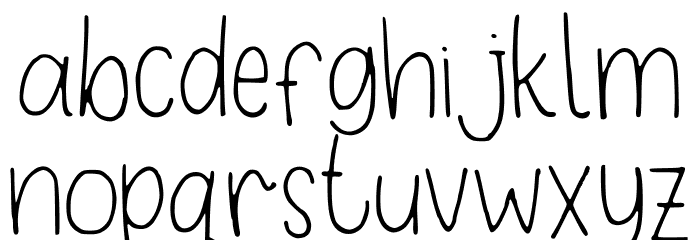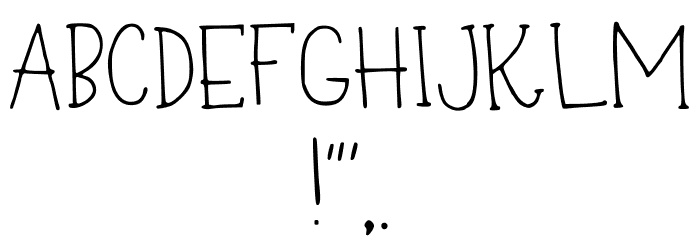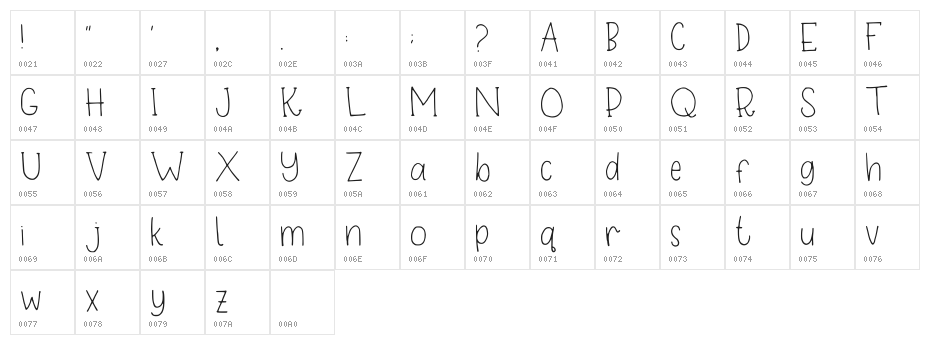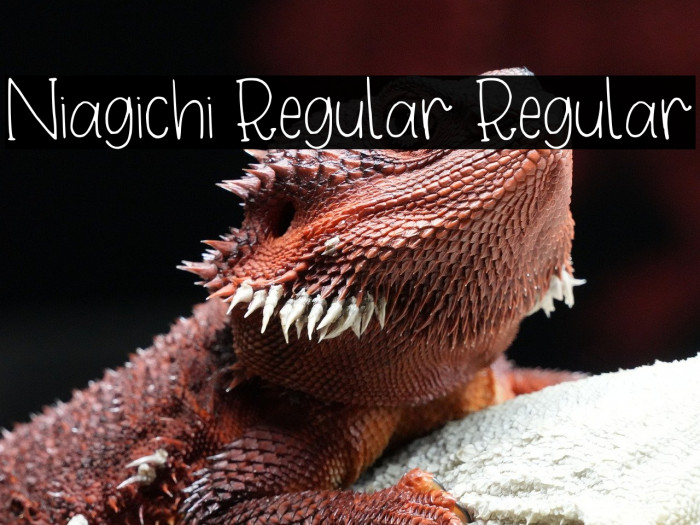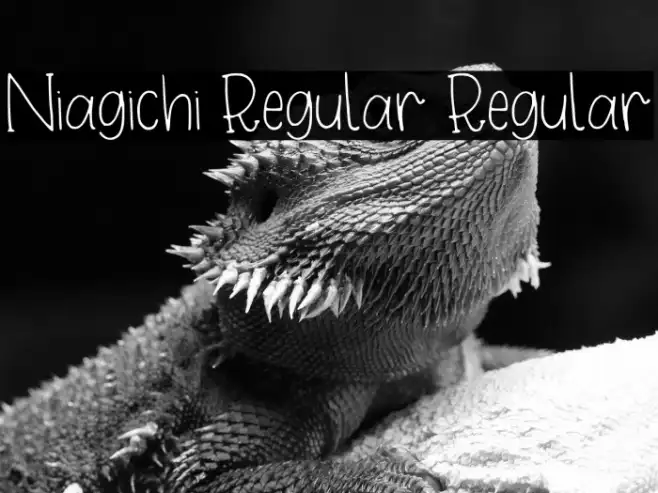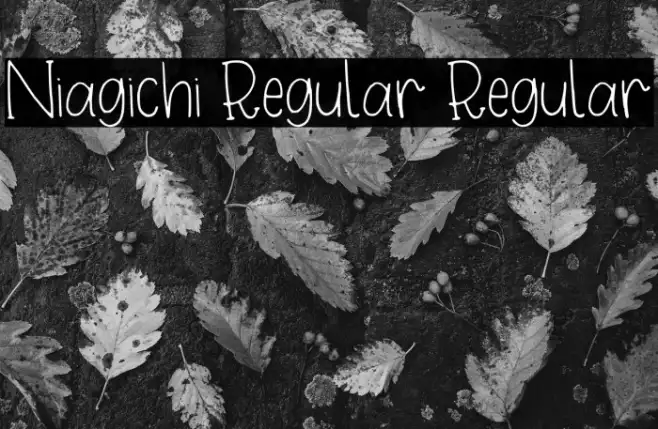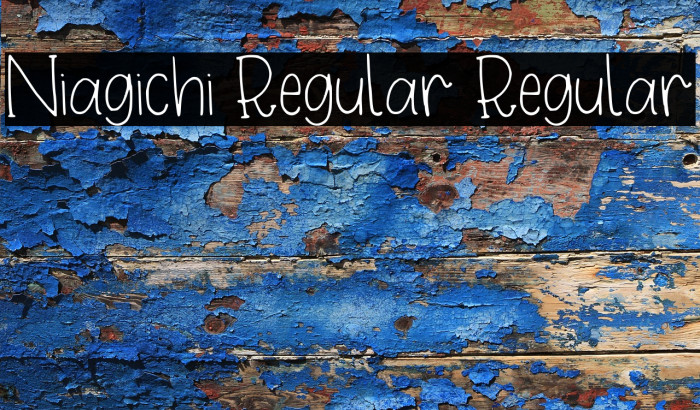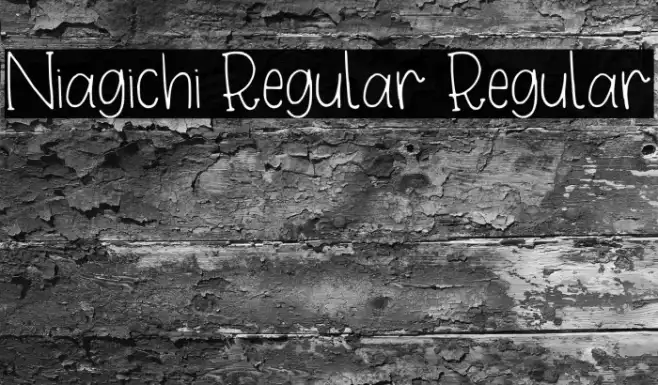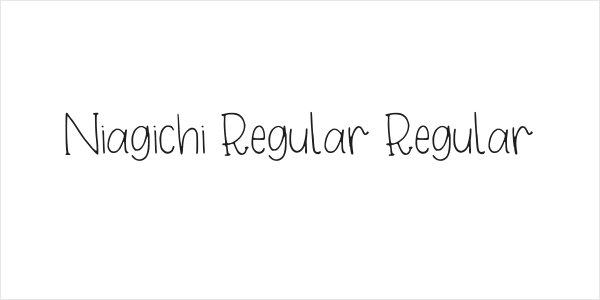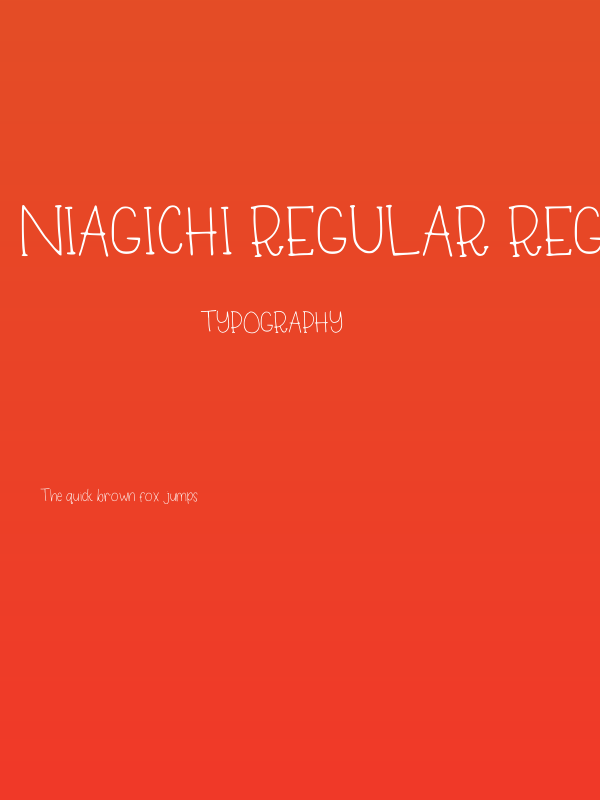
Niagichi Regular Font
This font features a playful and whimsical style, characterized by its irregular, hand-drawn appearance. The letters are tall and narrow, with a slight tilt that adds to its casual and informal feel. The strokes are consistent in width, giving it a uniform look despite its quirky design. The uppercase and lowercase letters maintain a cohesive style, with rounded edges and a slightly uneven baseline that enhances its handwritten charm. The special characters are simple yet complement the overall aesthetic, making it suitable for creative projects.
A playful, hand-drawn font with a whimsical and informal style.
- Proposed Projects: Ideal for children's books, greeting cards, playful branding, and creative posters.
- Overall Style: Playful
- Use Case: Headlines, Logos, Creative projects